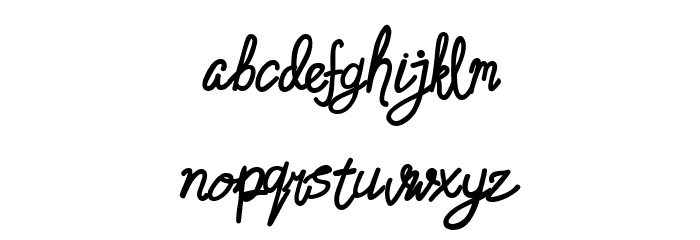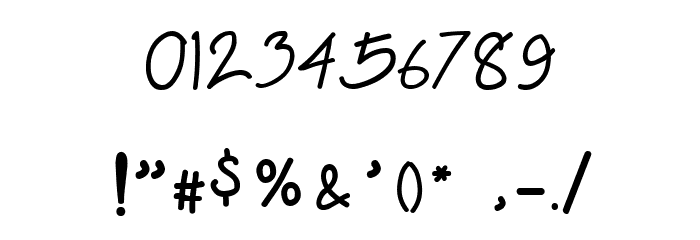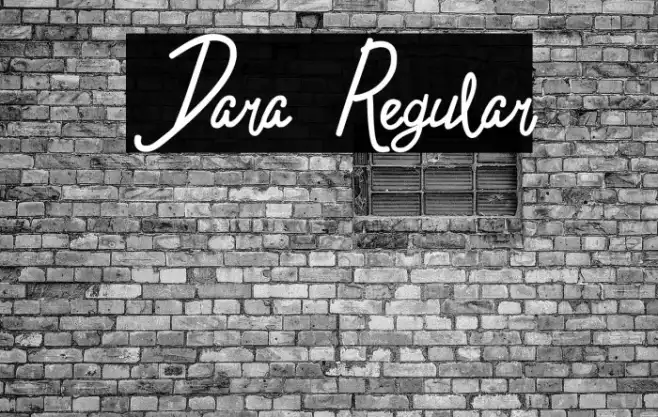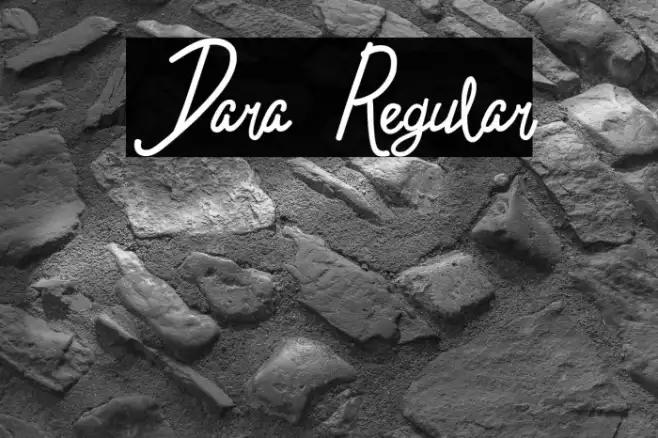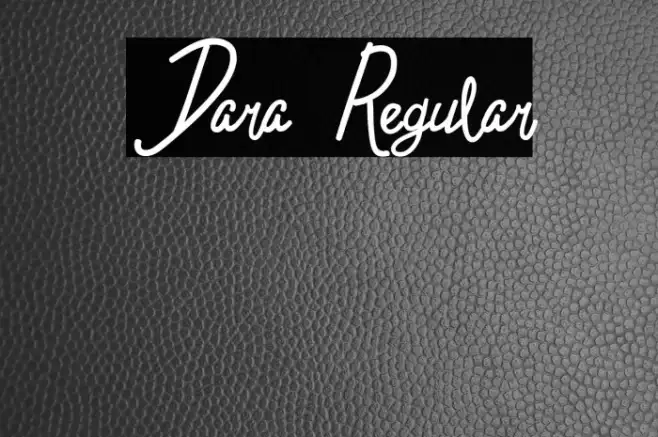
Dara Regular Font
This font features a lively and dynamic script style, characterized by its fluid and connected letterforms. The uppercase letters are tall and slightly slanted, giving a sense of movement and elegance. The lowercase letters maintain a consistent flow, with smooth curves and loops that enhance readability. Numbers are distinct and maintain the same playful style, while special characters are integrated seamlessly, adding versatility. The overall appearance is casual yet sophisticated, making it suitable for a variety of creative applications.
A lively and dynamic script font with fluid, connected letterforms.
- Font: Dara Regular
- Proposed Projects: Ideal for wedding invitations, greeting cards, personal branding, and creative projects that require a touch of elegance and personality.
- Category: Script
- Use Case: Logos, Invitations, Greeting Cards